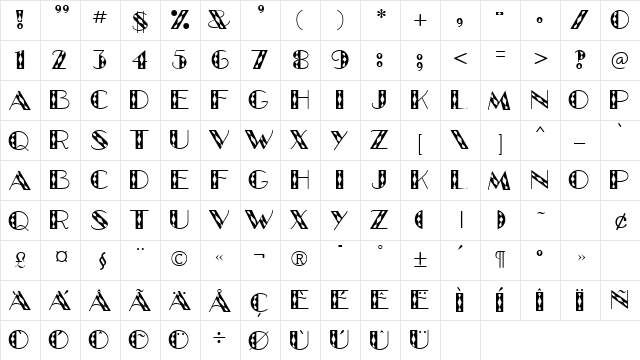
GlitzyJewel Regular
Design Context for GlitzyJewel Typeface
GlitzyJewel is a composed and adaptable typeface that performs quietly and consistently across a wide range of design contexts.